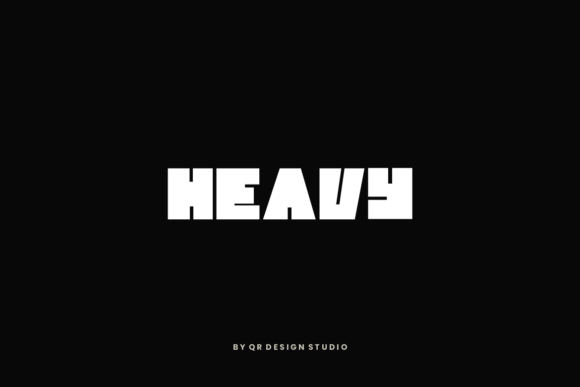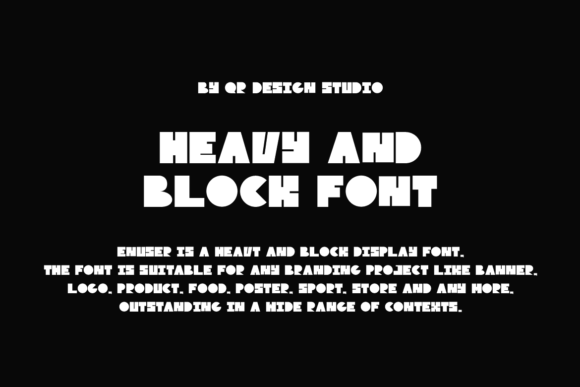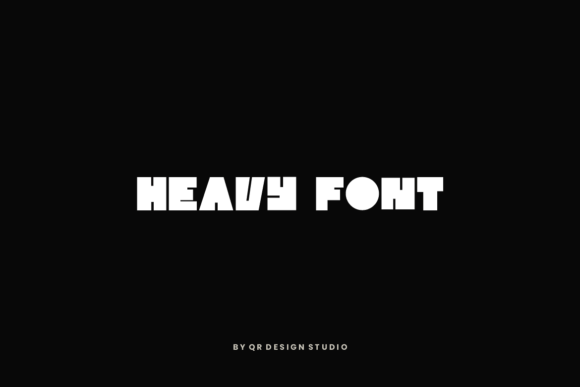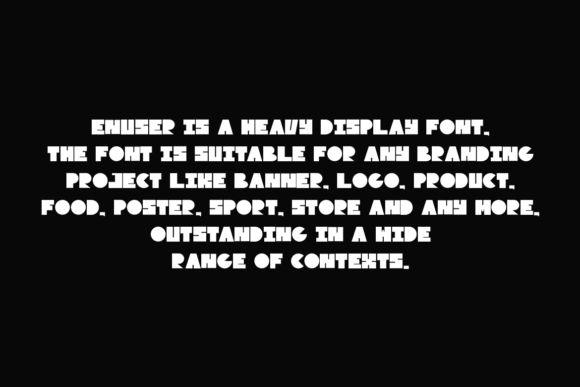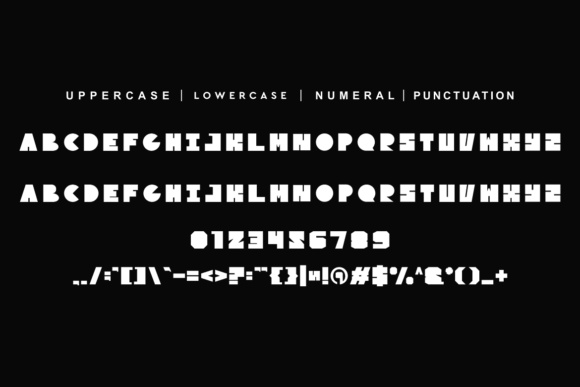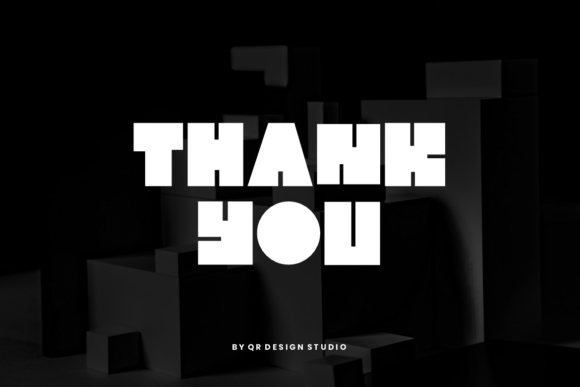
The Ultimate Design Game-Changer: Enuser Font
I’ll never forget the time I was working on a project for a bold and edgy client, and I was struggling to find the perfect font to match their vibe. I had spent hours scouring the internet, trying out different fonts, but nothing seemed quite right. That’s when I stumbled upon Enuser Font, and it was like a lightbulb went off in my head. This bold and assertive sans serif font was exactly what I needed to elevate my design and meet my client’s expectations.
An Honest Review of Enuser Font
- ✨ **Bold and Assertive**: Enuser Font is not for the faint of heart. It’s loud, it’s bold, and it’s confident. Whether you’re designing a logo, a poster, or a social media graphic, Enuser Font demands attention.
- ✅ **Versatile**: No matter the topic or industry, Enuser Font can adapt. From tech and finance to fashion and entertainment, this font can handle it all.
- 💡 **Easy to Read**: Despite its boldness, Enuser Font is surprisingly easy to read, even at smaller sizes. This makes it perfect for body text, headings, or titles.
While Enuser Font is an amazing addition to any design library, it’s not perfect. Here are a few things to keep in mind:
- 🤔 **Limited Serif Options**: As a sans serif font, Enuser Font may not be the best choice for designs that require a more traditional or elegant look.
- ⚠️ **Overuse**: Because Enuser Font is so bold, it can be tempting to overuse it. Be careful not to overwhelm your design with too much boldness.
- Experiment with OpenType features like bold and italic styles to add depth and interest to your design.
- Take advantage of glyphs and stylistic alternates to add visual interest to your design.
- Use the font’s bold and assertive style to add emphasis to your documents.
The Story Behind Enuser Font
Enuser Font was designed with the goal of creating a bold and assertive sans serif font that could be used for a wide range of design projects. The designer, inspired by modern typography trends, crafted Enuser Font to be both versatile and attention-grabbing.
| Font Name | Enuser Font |
| Author | qrdesignstd |
Q: What is Enuser Font?
A: Enuser Font is a bold and assertive sans serif font designed for a wide range of design projects.
Q: Is Enuser Font easy to read?
A: Yes, despite its boldness, Enuser Font is surprisingly easy to read, even at smaller sizes.